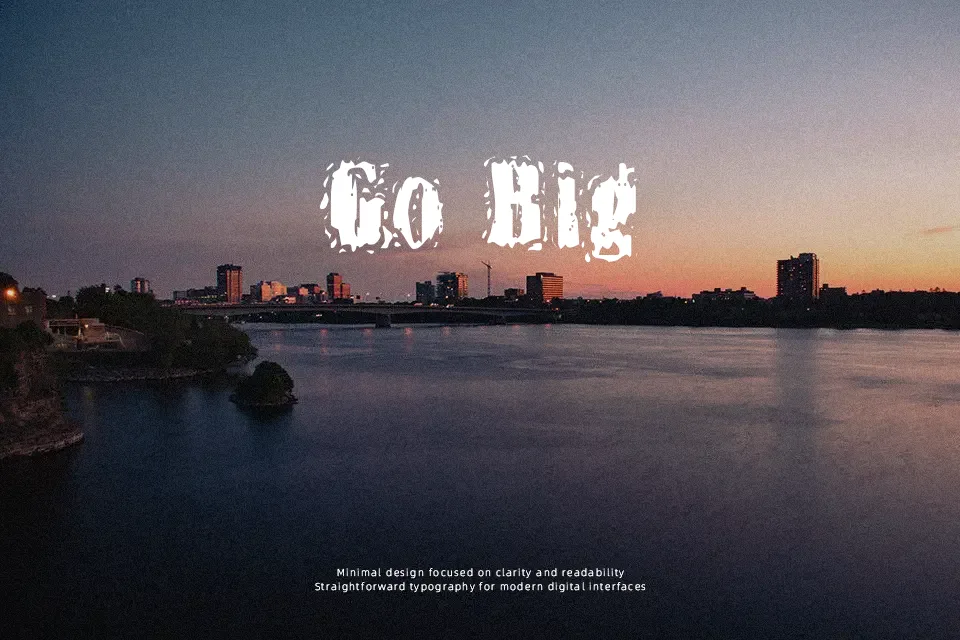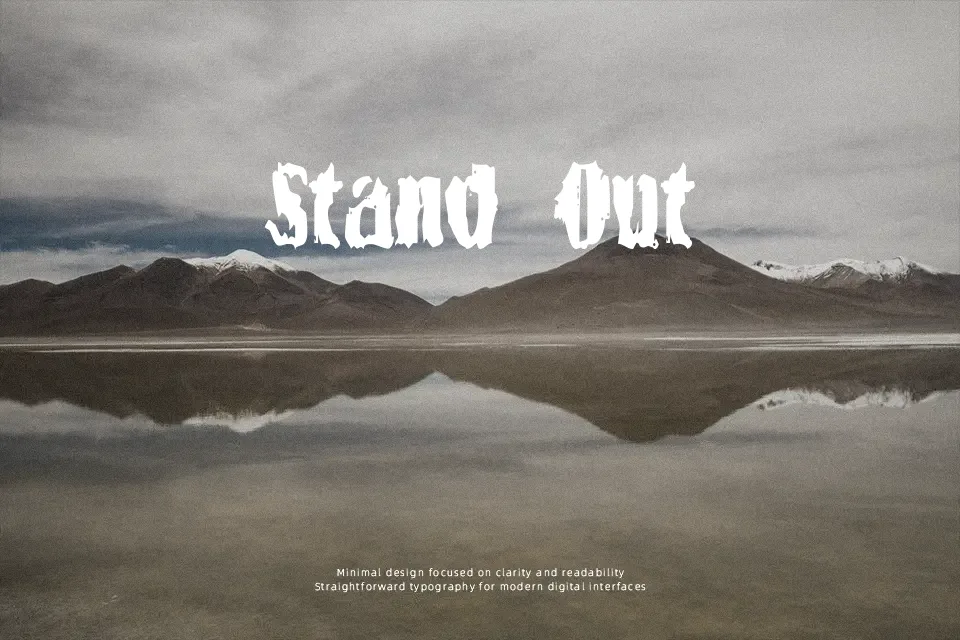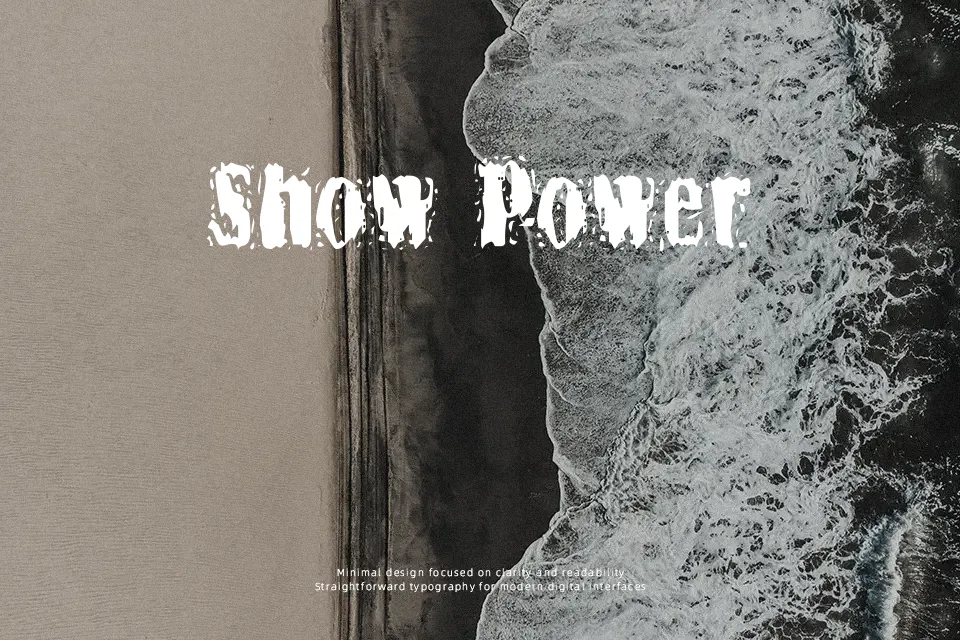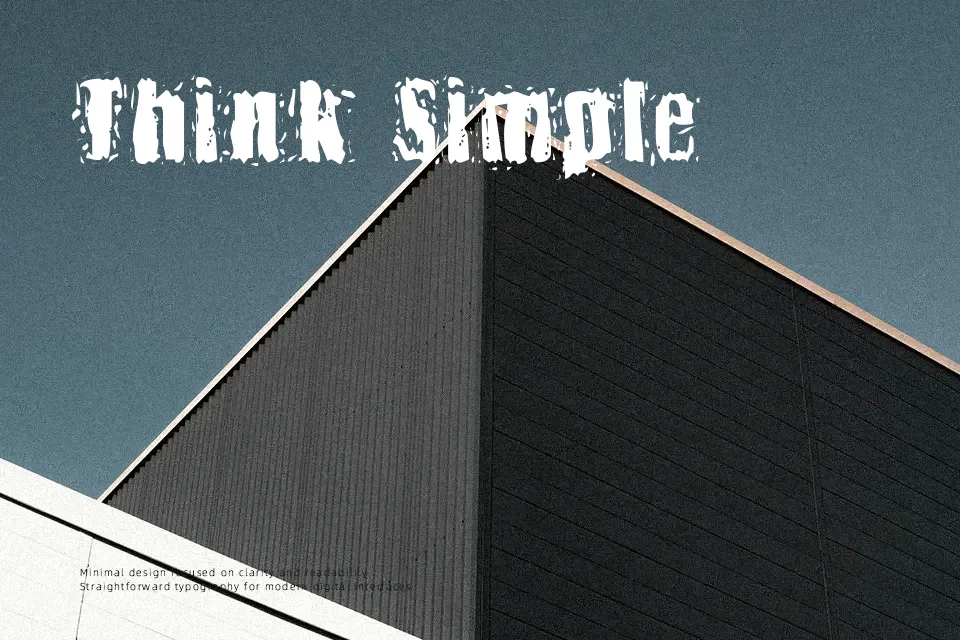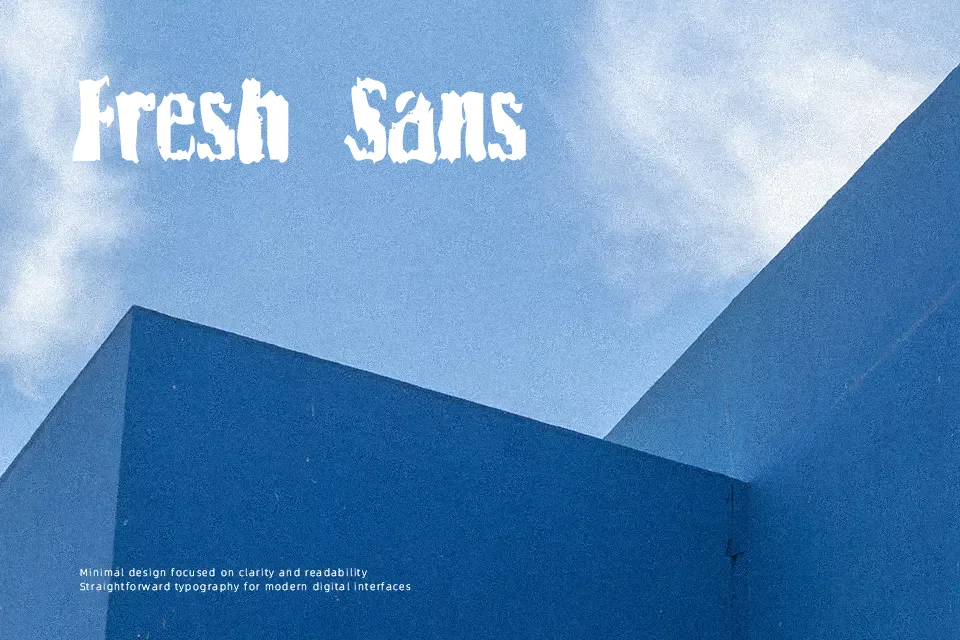
BN Yiftach Font
Designed by Ben's Fonts
BN Yiftach is a striking display typeface defined by its heavy, eroded strokes and distressed texture. Created by Ben Nathan, the letterforms carry a rugged, dismantled structure that immediately communicates a bold and unapologetic attitude. Its chunky weight and aggressive detailing make it an effective asset for designs requiring a grunge aesthetic, such as underground music album artwork, extreme sports branding, or dystopian film posters.
While this rough-edged style excels at grabbing attention in large headline sizes, it severely compromises readability when scaled down. Designers should avoid deploying it for body copy or clean corporate branding where clarity must be prioritized. BN Yiftach truly shines when utilized as a dominant focal point, injecting instant drama and gritty character into alternative creative projects.
Large-scale headlines on dystopian film posters
Edgy album artwork for rock or metal bands
Gritty marketing materials for extreme sports
Long paragraphs or small-scale body text
Minimalist corporate brand identities
Formal event invitations or luxury packaging
Perfect for film, gaming, and headline, with a bold and decorative style.